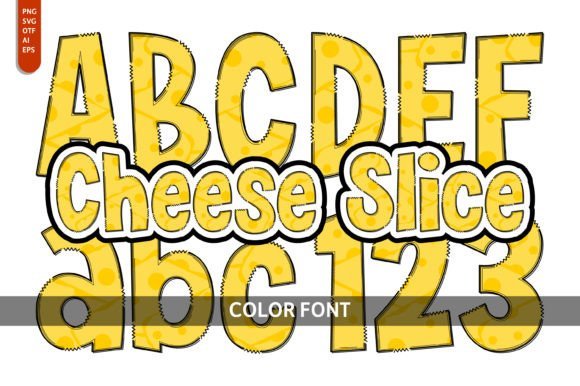
Discover the Deliciously Whimsical World of Cheese Slice Font
Have you ever stared at a blank page, waiting for inspiration to strike, only to have a burst of creativity hit you like a ray of sunshine? For designers, this moment is the holy grail – and it’s exactly what the Cheese Slice Font is designed to evoke. This playful, artistic font is perfect for bringing your most imaginative projects to life.
Whether you’re crafting a children’s book, designing a poster, or creating an invitation, Cheese Slice Font is the perfect tool to add a dash of whimsy and personality. Its vibrant colors and easy-to-read style make it a valuable asset for designers looking to create engaging and memorable designs. With its compatibility with popular design software like PhotoShop, Illustrator, and Inkscape, the possibilities are endless.
Cheese Slice Font Key Features
• Font Family: Cheese Slice Font is a unique, hand-drawn font designed to resemble a cheese slice.
• Unique Characteristics: The font features a distinctive, wavy texture that gives it a natural, organic feel.
Designer Review: Cheese Slice Font
I recently had the chance to work with the Cheese Slice Font, and I’m excited to share my honest thoughts on this quirky font.
• ✨ Unique Character: The Cheese Slice Font has a distinct, playful personality that can add a touch of whimsy to any design project.
• ✨ Customization Options: The font comes with a range of customization options, including bold and italic styles, which can help designers achieve the desired look.
• ⚠️ Limited Legibility: At small font sizes, the Cheese Slice Font can become difficult to read, which may limit its use in certain design contexts.
• ⚠️ Over-Use: The font’s playful nature can be overwhelming if over-used, which may detract from the overall design’s impact.
Overall, I think the Cheese Slice Font is a fun and creative option for designers looking to add some personality to their projects. While it may have some limitations, its unique character and customization options make it a valuable addition to any design toolkit.
Alternatives to “Cheese Slice Font” for Designers
Great Vibes Font is a fun and playful script font that is ideal for creating a casual and relaxed atmosphere in designs. It’s perfect for use in branding, advertisements, and social media graphics.
Compared to Cheese Slice Font, Great Vibes Font has a more elegant and refined feel, making it suitable for a wider range of designs. However, both fonts share a similar playful and whimsical tone.
Alex Brush Font is a beautiful and elegant script font that is perfect for creating a sophisticated and luxurious atmosphere in designs. It’s ideal for use in high-end branding, packaging, and editorial designs.
Compared to Cheese Slice Font, Alex Brush Font has a more refined and sophisticated feel, making it suitable for more formal and high-end designs. However, both fonts share a similar elegant and refined tone.
Dancing Script Font is a lively and energetic script font that is perfect for creating a dynamic and attention-grabbing atmosphere in designs. It’s ideal for use in advertisements, social media graphics, and event promotions.